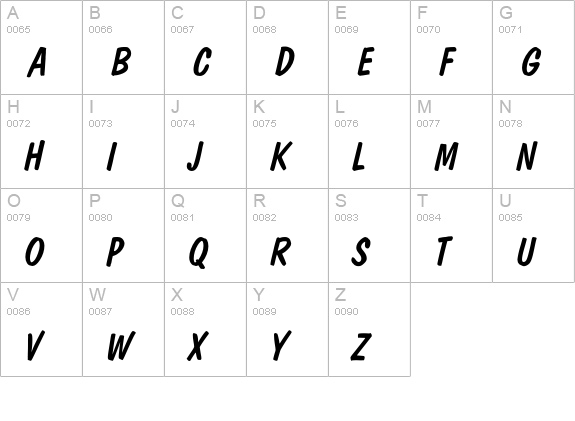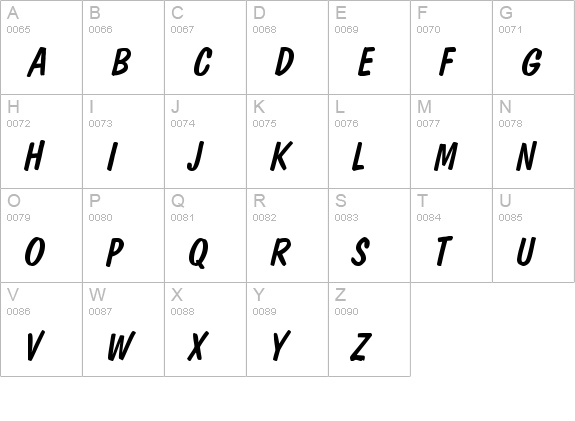
Dom Diagonal Font Details
Dom Diagonal is a modern and stylish font that adds a touch of elegance to any design project. With its unique diagonal lines and sleek appearance, this font is perfect for creating eye-catching headlines, logos, and branding materials. The clean and legible design of Dom Diagonal makes it versatile and suitable for a wide range of applications, from digital displays to print materials. And the best part? Dom Diagonal is completely free to download at FontsMarket.com. Whether you're a professional designer looking for a fresh new font to add to your collection or a hobbyist searching for a unique typeface for a personal project, Dom Diagonal is the perfect choice. Download it today and elevate your designs with this stunning and modern font.